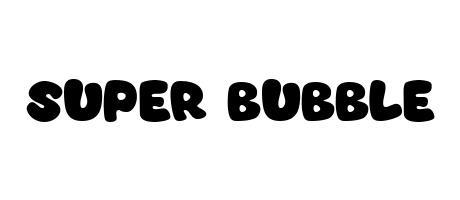
Super Bubble
Super Bubble is a playful, cartoonish font. Its rounded, bubbly letters create a sense of fun and whimsy. Each character is generously sized, with a slightly uneven, hand-drawn quality. The boldness of the typeface makes it highly legible and attention-grabbing, perfect for titles and headings needing a touch of playful energy.